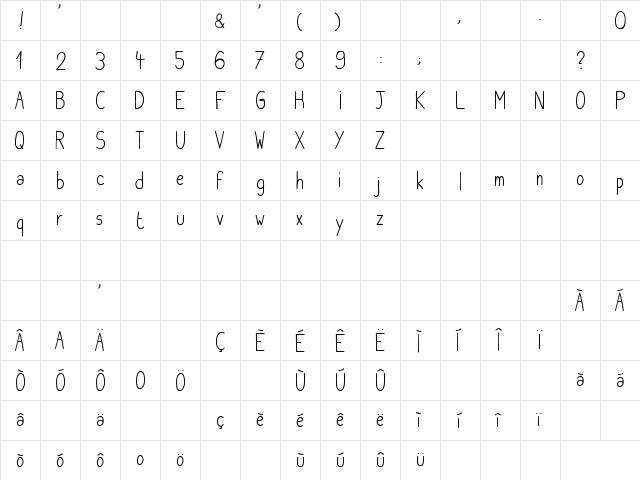
Everland Regular
| Foundry | High-Logic |
| Designer | High-Logic - Erwin Denissen 1999 |
Design Context for Everland Typeface
Everland offers clean, dependable letterforms without strong stylistic allegiance, making it a practical choice for designers who need flexibility.